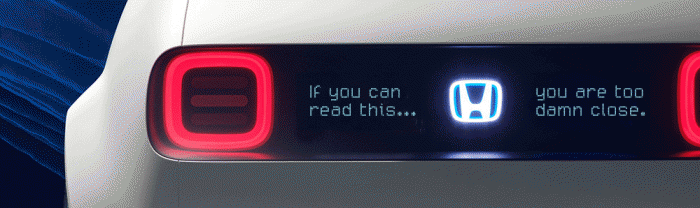
Honda released the Urban EV concept car at the 2018 Frankfurt auto show and used a modular typeface on a screen on the outside of the car. It reminded me of a typeface I designed on Fontstruct a number of years ago, Micro 205, but with two different sized dots instead of squares. SbB Drivetrain 209 is inspired by the Honda design, but beyond a couple of design cues, it's a completely different design.
My sample of SbB Drivetrain 209.
I really like the lower case letters. They have a smooth, comfortable feel to them. I am having trouble with the capital Q and somewhat the J and the K. They seem to break the smooth feel of the rest of the font.
I made a couple of adjustments. The J was too wide and I tweaked the Q...
@Sketchbook B - You may have already considered this, but could the start of the second hump of the m benefit from starting one dot lower like the h, n, r, etc.? On your wonderful sample above, the left side of the m looks somewhat squished, and almost flat across the top. Having the right side mirror the same starting point might alleviate that. Otherwise, outstanding. :^)
@goatmeal You are exactly right. I adjusted the m and it definitely looks better.